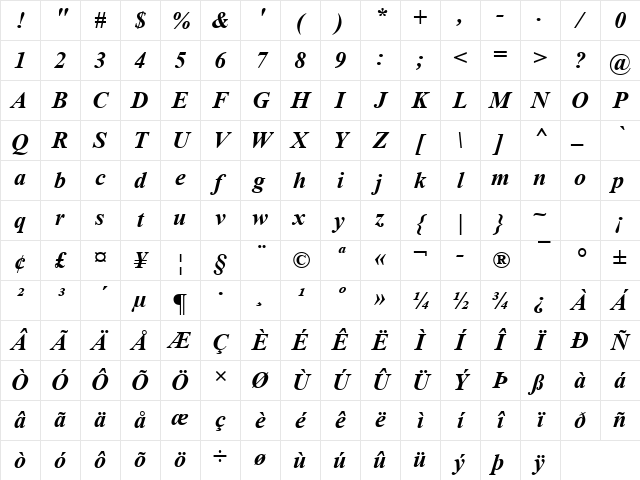
Complete Times New Roman Bold Italic glyph index. Displaying only characters natively supported by Times New Roman Bold Italic font.
Times New Roman is a composed and adaptable typeface that performs quietly and consistently across a wide range of design contexts. The slanted form adds forward momentum and visual energy. Its bold stroke weight gives it real presence on the page.
Pro Tip: Use Times New Roman for emphasis, pull quotes, and subheadings where its slanted energy can add rhythm to the layout.